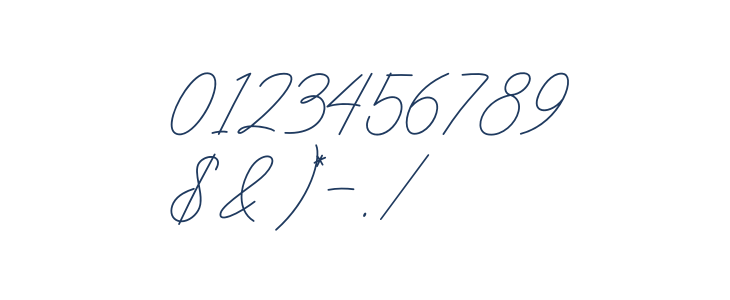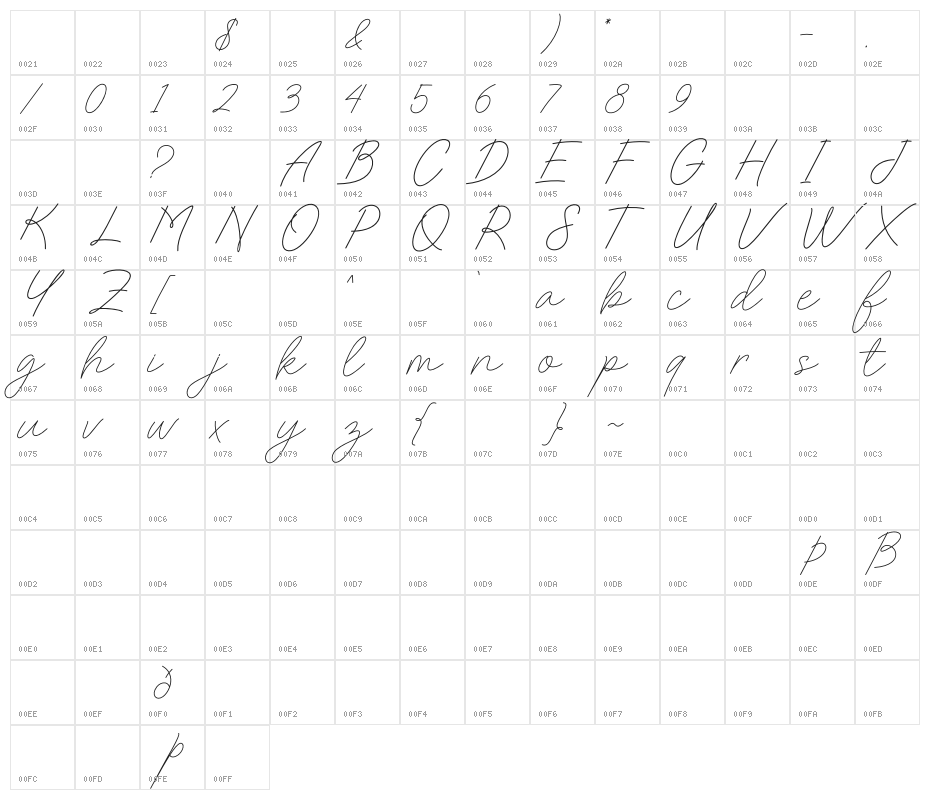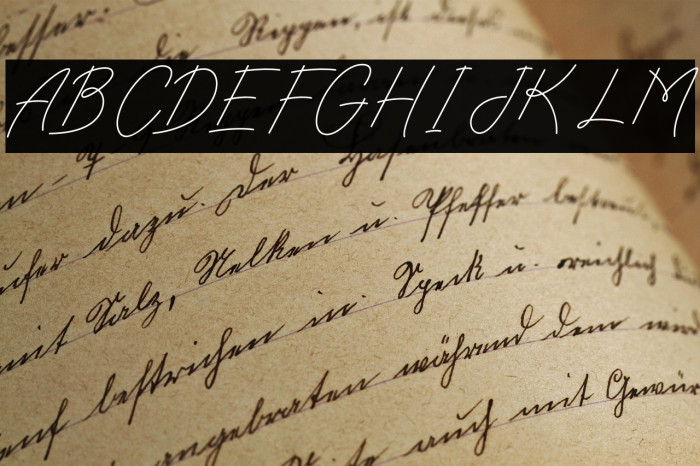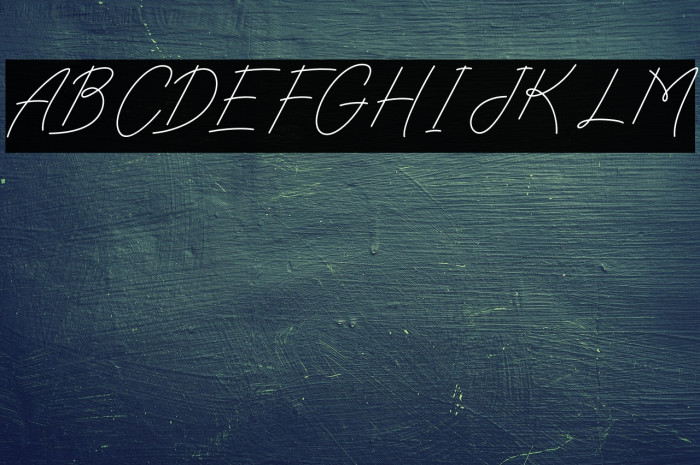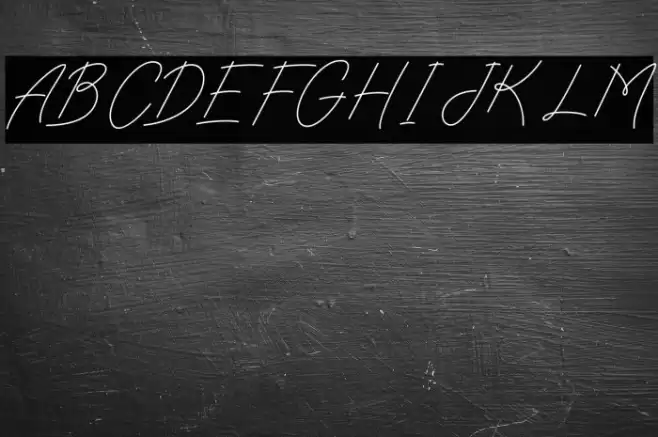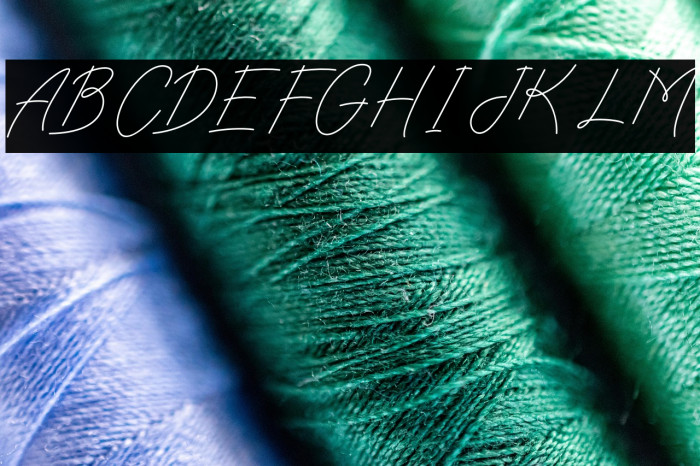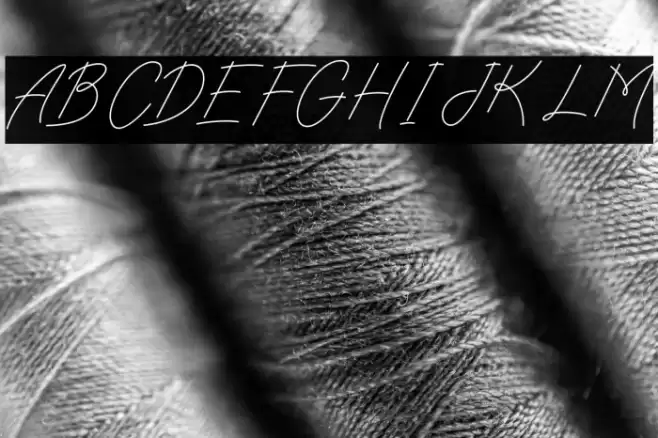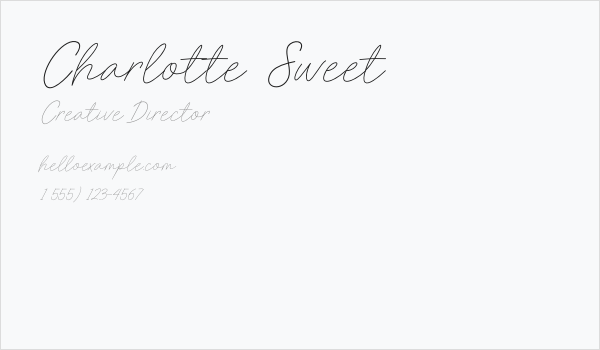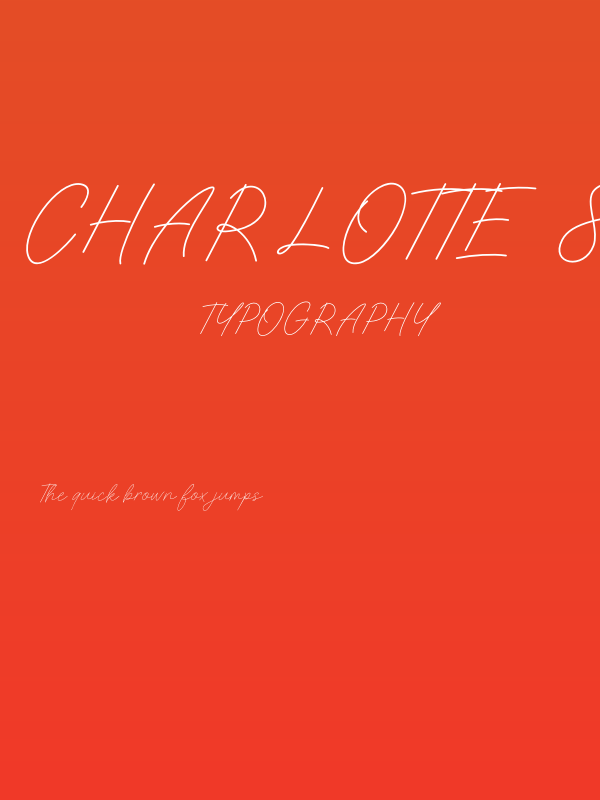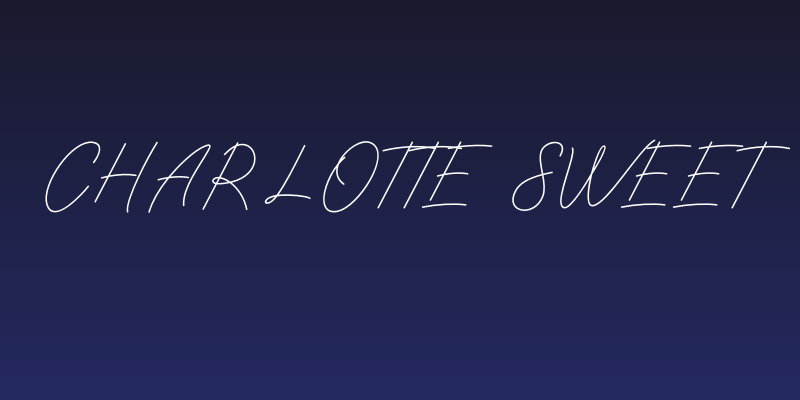
Charlotte Sweet Font
Charlotte Sweet Description
This font exudes a graceful and elegant handwritten style, characterized by its fluid and continuous strokes. The letters are connected in a cursive manner, giving it a personal and intimate feel. The uppercase letters are slightly more structured, while the lowercase letters flow seamlessly into one another. The numerals maintain the same fluidity, ensuring consistency across the character set. Special characters are thoughtfully integrated, maintaining the overall aesthetic. This font is perfect for projects that require a touch of sophistication and elegance.